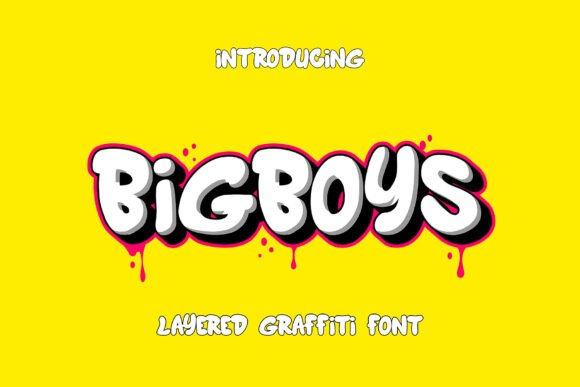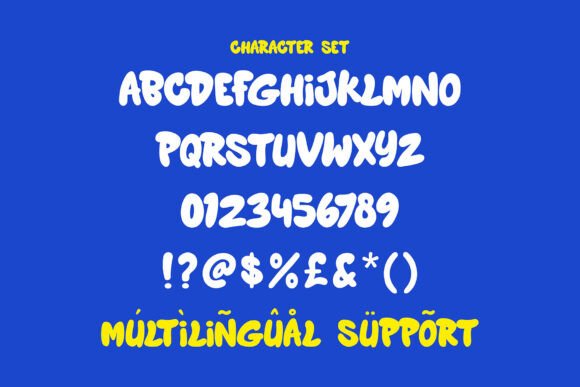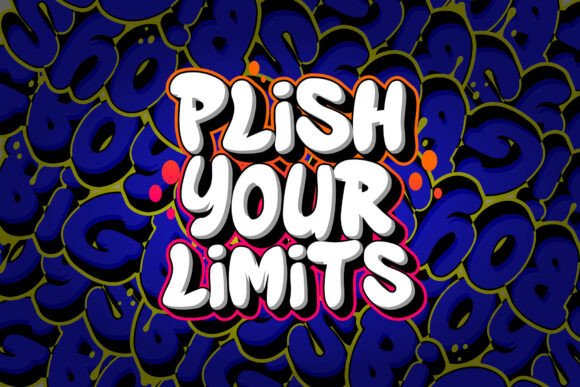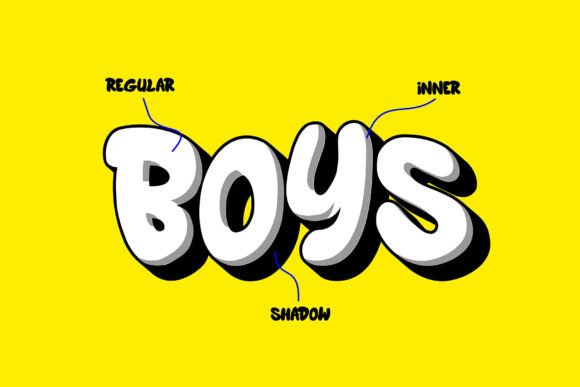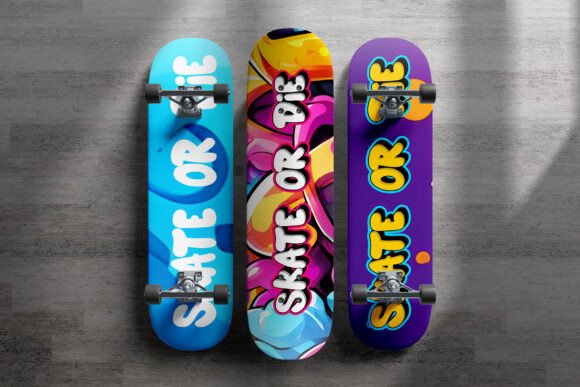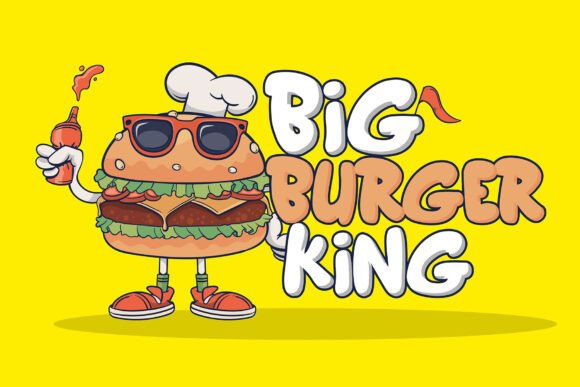
The Ultimate Street Art Font: Elevate Your Designs with Bigboys
Have you ever found yourself scrolling through social media, stumbling upon a vibrant street art piece that stops you dead in your tracks? For many creatives, that’s the moment when inspiration strikes, and the urge to express themselves through bold, eye-catching visuals takes over. This is exactly what Bigboys Font is all about – unleashing a wave of energy and street-art flair into your designs.
Bigboys Font is a 3D graffiti font that’s unapologetically chunky and bold, boasting robust, rounded letters that are layered with unique effects. Its exceptional ability to imbue depth and dimension into any design makes it a valuable tool for designers looking to add a touch of urban aesthetic to their work. Whether it’s a hip-hop poster, a streetwear logo, or music album art, Bigboys Font seamlessly integrates into any graffiti-infused endeavor.
- Unique Characteristics: The font features a bold, modern design with rounded edges and clean lines, making it perfect for creating eye-catching headlines and titles.
Designer Review: Bigboys Font
Bigboys Font is an interesting choice for designers looking to add a unique touch to their projects. It works well in certain situations, particularly in ✨ display headings where its bold and playful personality can shine. The font’s large x-height makes it easy to read at smaller sizes, and its rounded edges give it a friendly feel.
However, there are some limitations to consider. In terms of ✨ legibility, Bigboys Font can be challenging to read at smaller sizes or in situations where there’s a lot of text. Additionally, its lack of versatility means it may not be the best choice for body text or long-form content. ⚠️ Be cautious when using it for large blocks of text, as it can become overwhelming and difficult to read.
Overall, Bigboys Font is a fun and eye-catching choice for designers who want to add a bit of whimsy to their projects. While it may not be suitable for every situation, it can be a great option for ✨ creative projects or promotional materials where a bold, playful feel is desired.
- Works well in display headings and promotional materials
- Can be challenging to read at smaller sizes or in large blocks of text
- Lack of versatility limits its use in body text or long-form content
Bigboys Font is perfect for creating bold and eye-catching designs. Here are some tips to get the most out of it:
- Use it in combination with other bold fonts to create a striking visual effect.
- Use Bigboys Font for headings and titles to draw attention to important information.